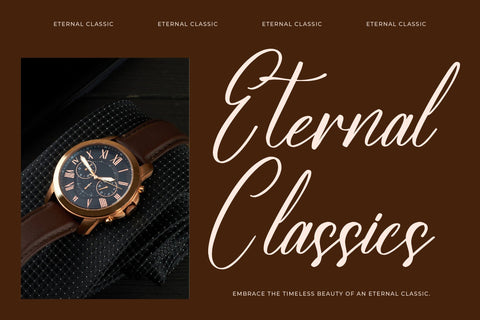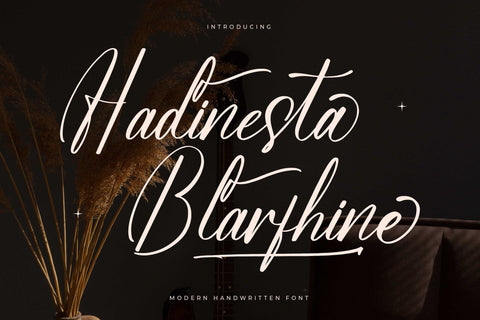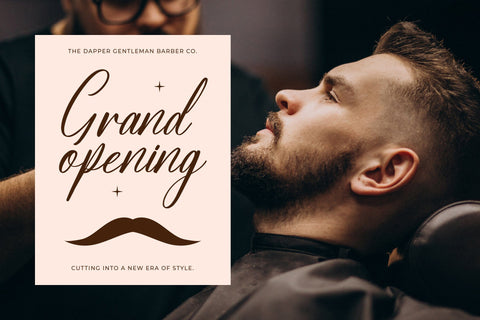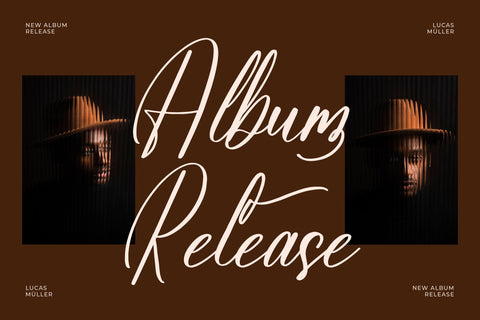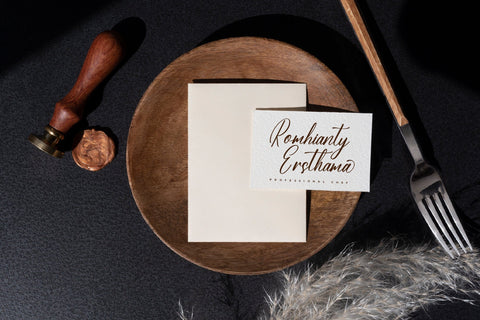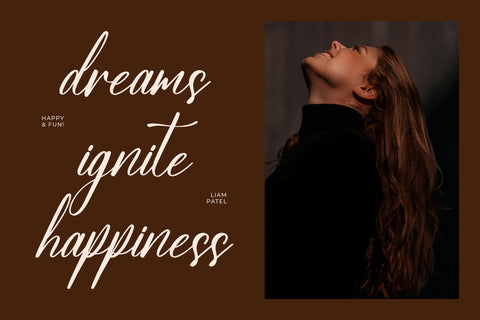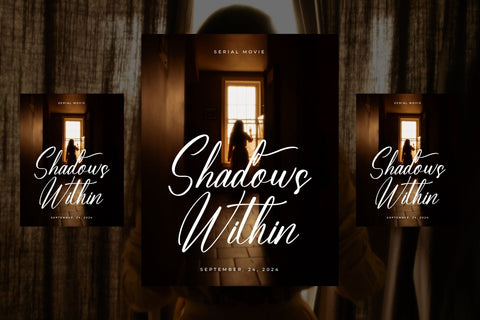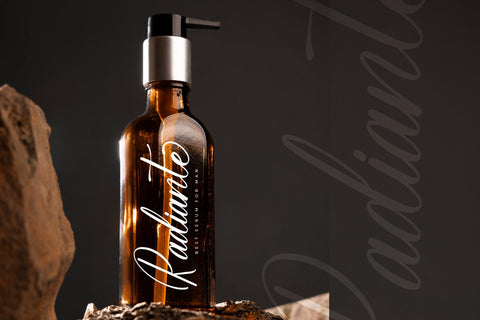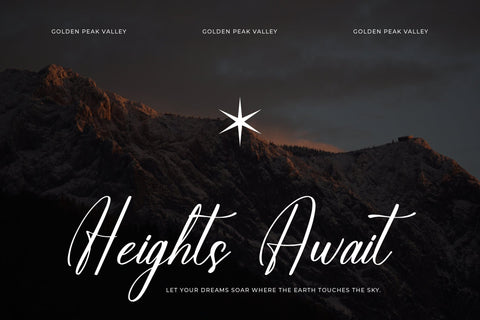
Hadinesta Blarfhine - Modern Handwritten Font
Hadinesta Blarfhine - Modern Handwritten Font , from Letterena, is a Luxury Script font, suitable for any projects such as: logos, branding projects, homeware designs, product packaging, mugs, quotes, posters, shopping bags, t-shirts, book covers, name card, invitation cards, greeting cards, label, photography, watermark, special events, and all your other luxury and beautiful projects that need a Luxury Script taste.